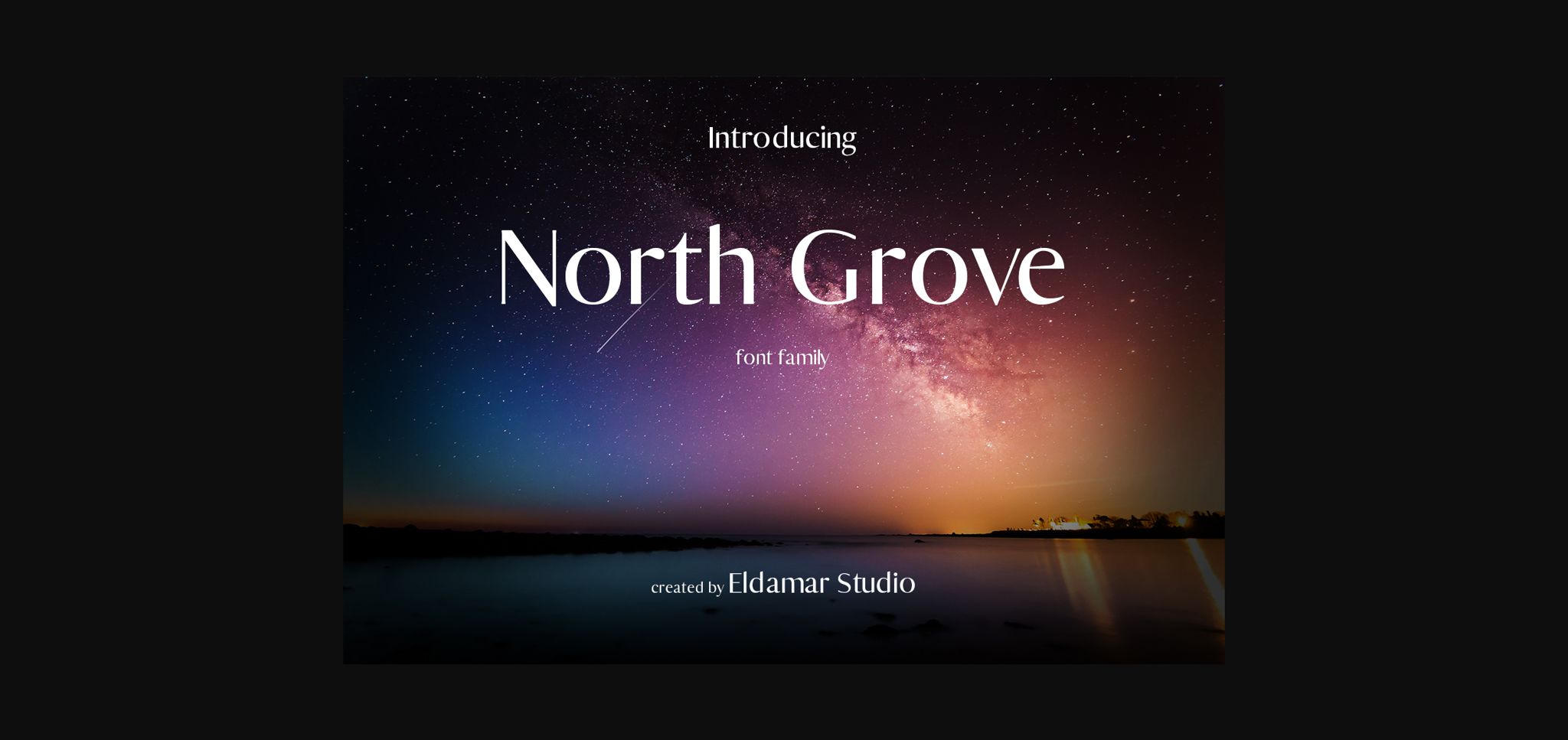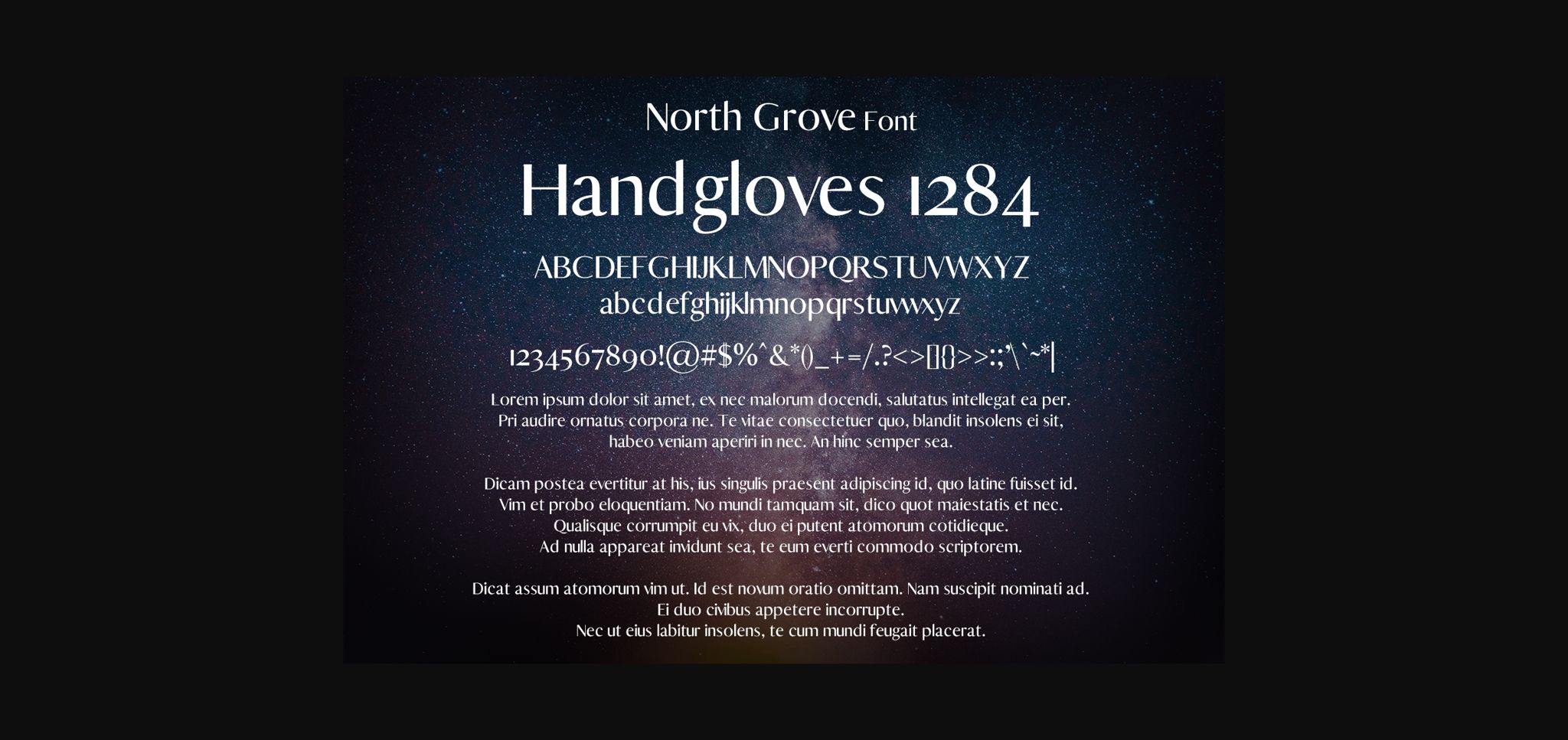
North Grove Font
About North Grove Font
North Grove is a stylish and delicate sans serif font. It has a clean, thin and smooth vibe and it will be a hit for any design that you want to add it to.